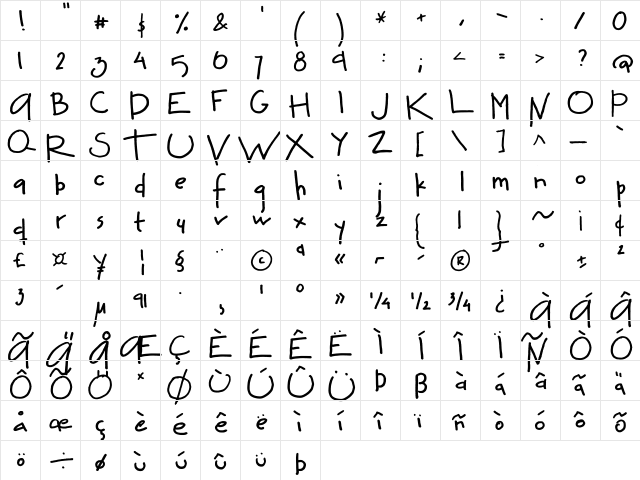
FG Adam Regular Font Preview
FG Adam Regular
FG Adam Regular Font Details
| Foundry | Font Garden |
| Designer | Font Garden |
Design Context for FG Adam Typeface
FG Adam offers clean, dependable letterforms without strong stylistic allegiance, making it a practical choice for designers who need flexibility.